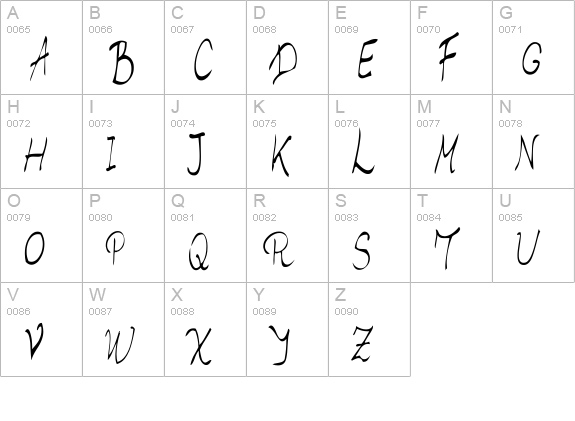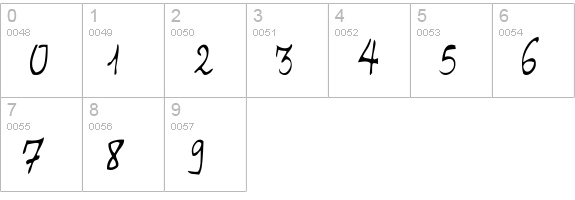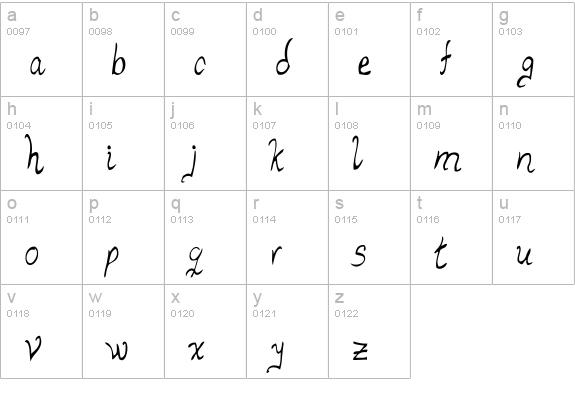
Luismi Murder Font Details
Introducing the captivating Luismi Murder font, a stunning typeface that combines elegance with a touch of mystery. This font is perfect for those seeking to add a touch of intrigue and sophistication to their designs. With its bold and sharp lettering, Luismi Murder commands attention and demands to be noticed. What makes Luismi Murder even more appealing is that it is completely free to download at FontsMarket.com. Yes, you read that right! This incredible font can be yours without spending a single penny, making it a must-have for designers, artists, and creatives on a budget. Designed with meticulous attention to detail, Luismi Murder exudes a sense of dark allure, making it ideal for a wide range of projects. From book covers and movie posters to logos and branding materials, this font effortlessly adds a touch of edginess and sophistication to any design. The sleek and stylish characters of Luismi Murder make it highly versatile, allowing it to be used in both digital and print formats. Whether you're designing a website, creating social media graphics, or crafting a magazine layout, this font will elevate your work to the next level. But the best part is that Luismi Murder is not only aesthetically pleasing, but it is also incredibly user-friendly. Its clean and easily readable letterforms ensure that your message comes across loud and clear, while still maintaining its unique and captivating style. So why wait? Don't miss out on this incredible opportunity to enhance your designs with the mesmerizing Luismi Murder font. Head over to FontsMarket.com today and download this exquisite font completely free of charge. Let your creativity soar and create stunning designs that leave a lasting impression.